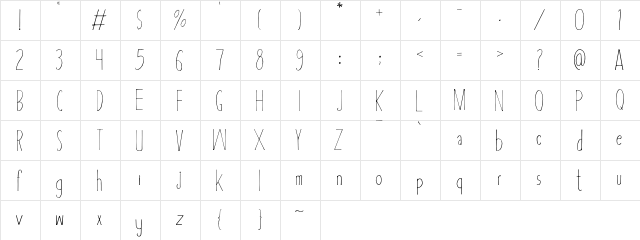
Asbah Regular
Design Context for Asbah Typeface
Asbah offers clean, dependable letterforms without strong stylistic allegiance, making it a practical choice for designers who need flexibility.
Pro Tip: Use Asbah in both headline and body roles to test its range before committing to a single application.